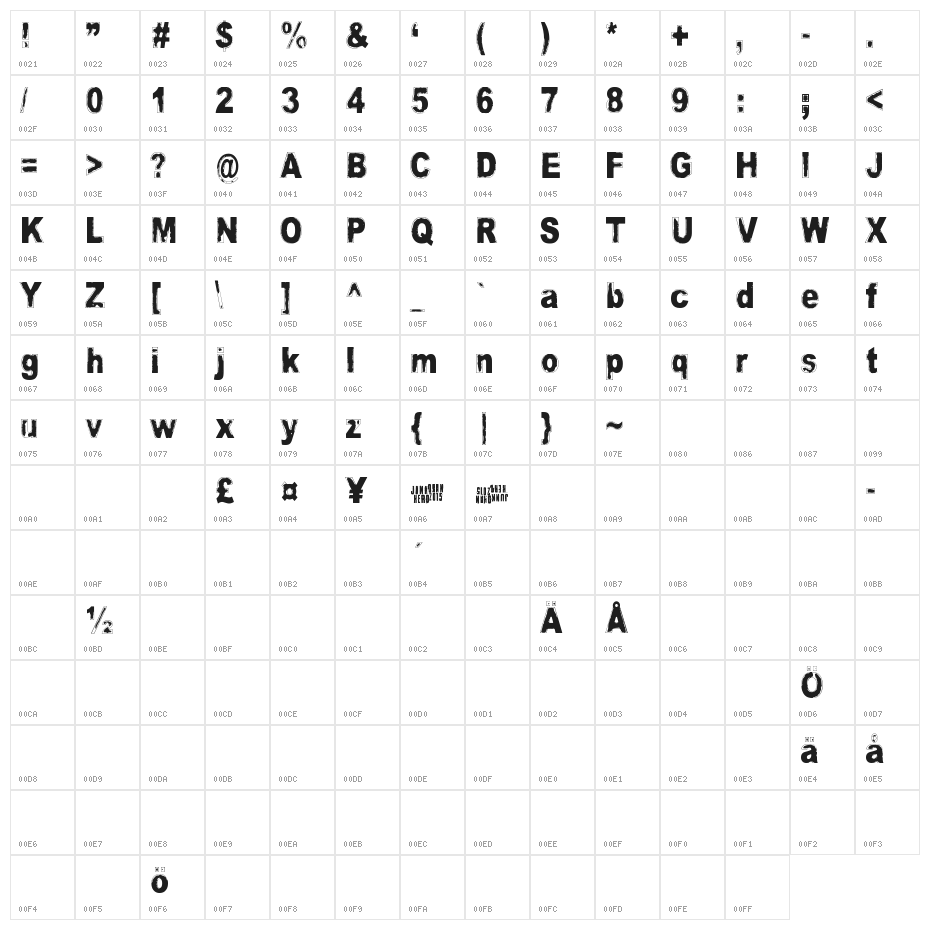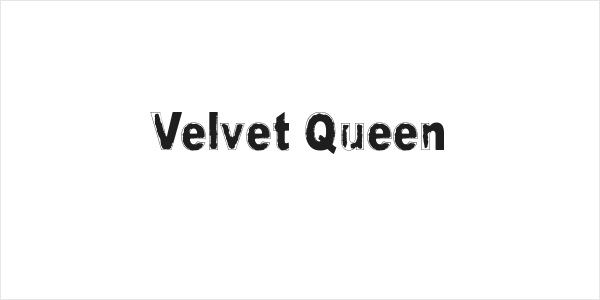
Velvet Queen Font
Velvet Queen Description
This font features a bold, distressed style with a textured appearance that gives it a rugged, vintage feel. The uppercase and lowercase letters are consistent in their boldness, with a slightly rough edge that adds character. The numbers and special characters maintain this distressed look, making the font ideal for projects that require a touch of nostalgia or a handcrafted aesthetic. The overall design is eye-catching and suitable for creative and artistic applications.
| Proposed Projects | Ideal for posters, album covers, vintage-themed designs, and branding projects that require a bold statement. |